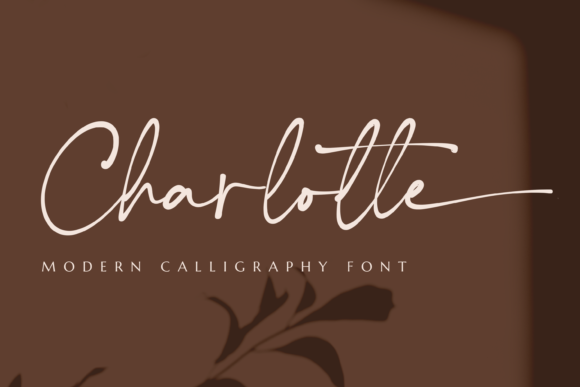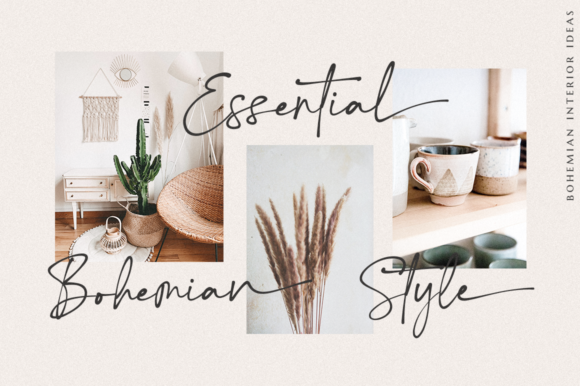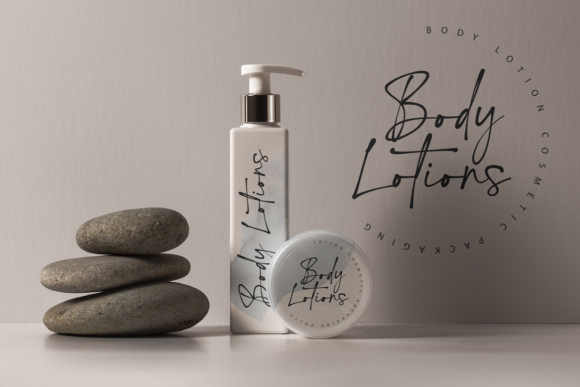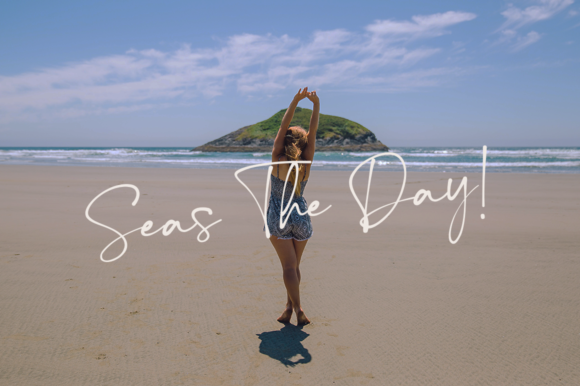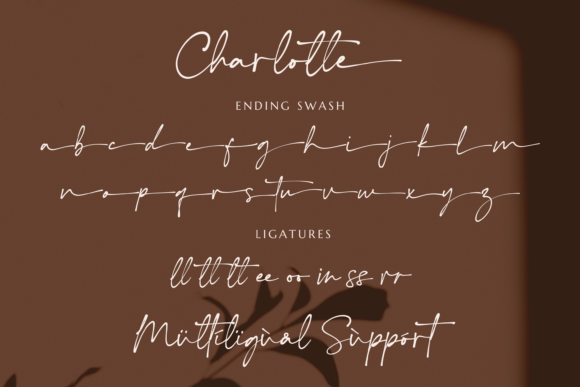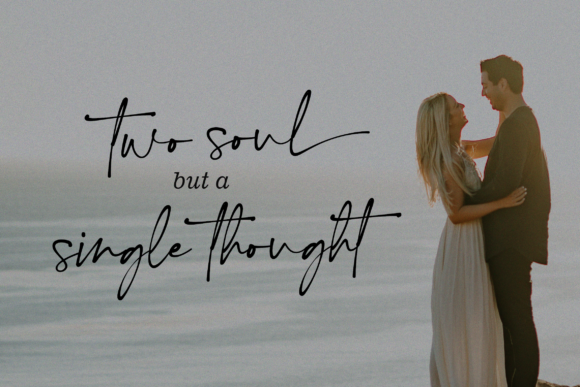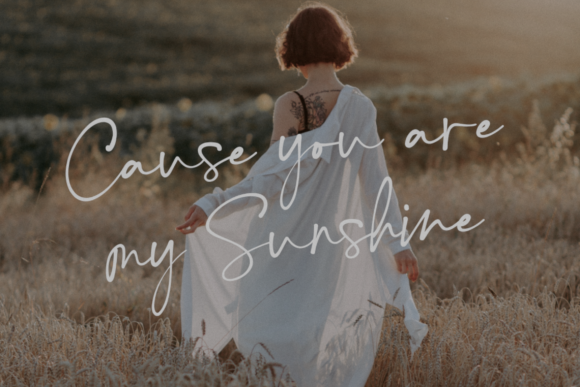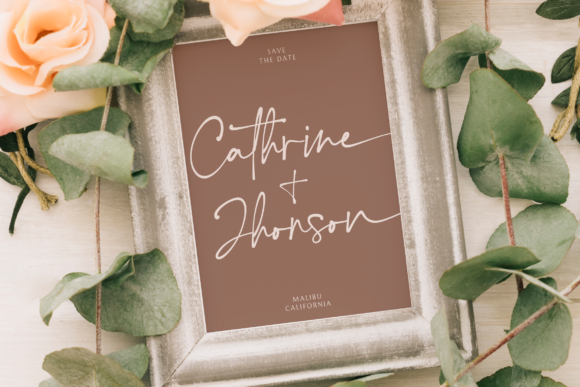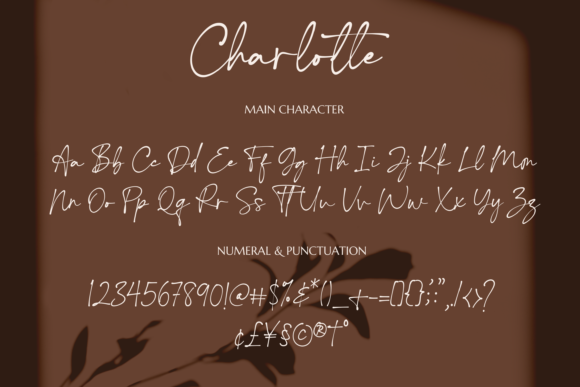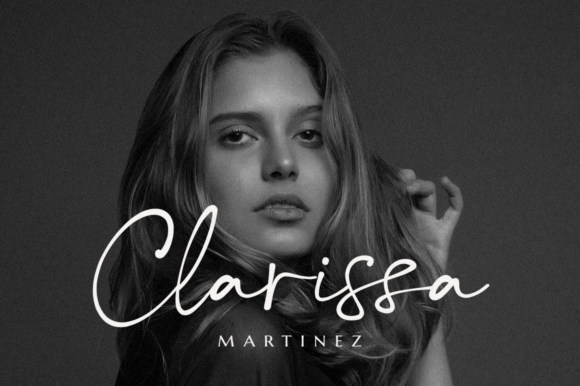
Charlotte Font
About Charlotte Font
Charlotte is a modern and flowing calligraphy font.
It looks stunning on wedding invitations, thank you cards, quotes, greeting cards, logos, business cards and every other design which needs a handwritten touch.